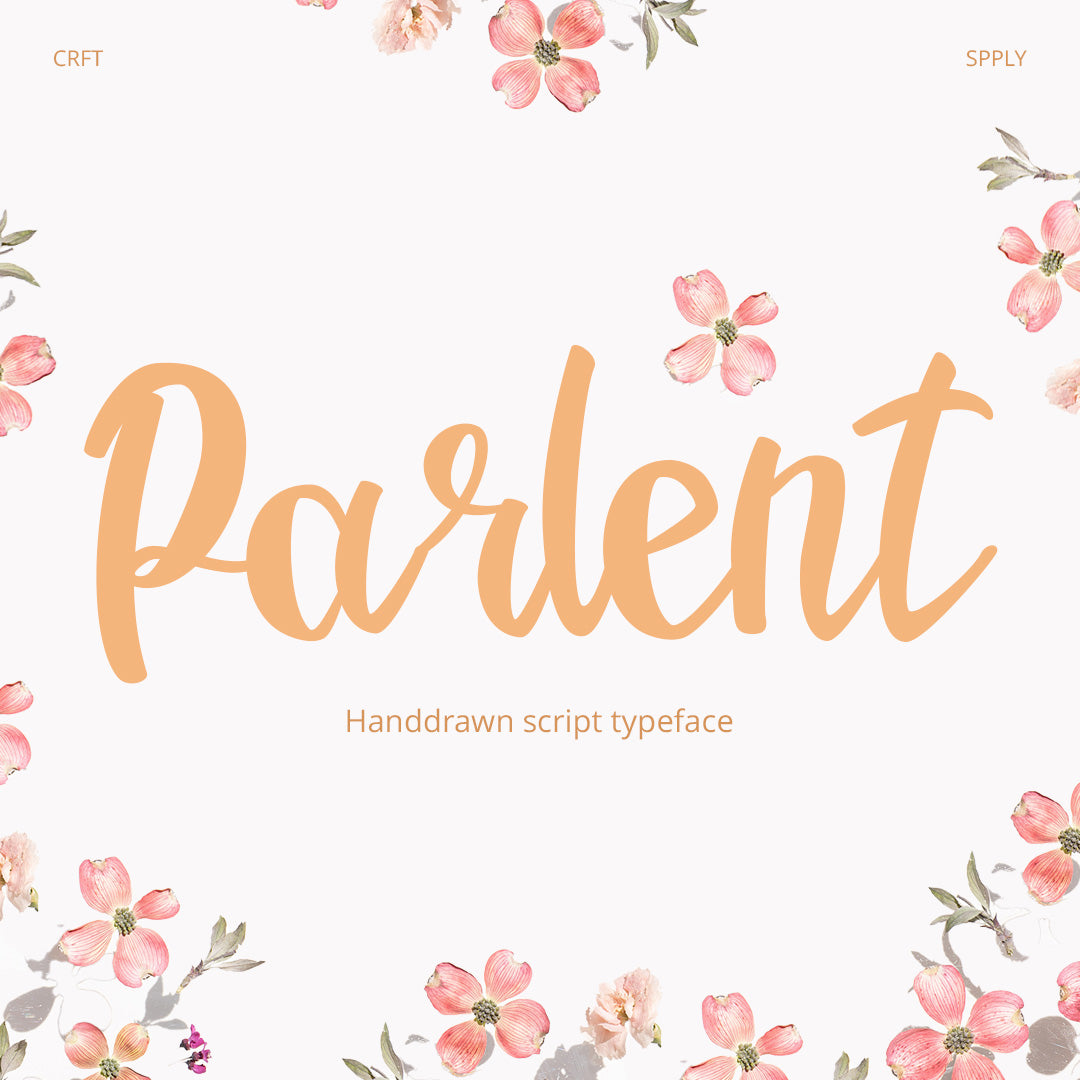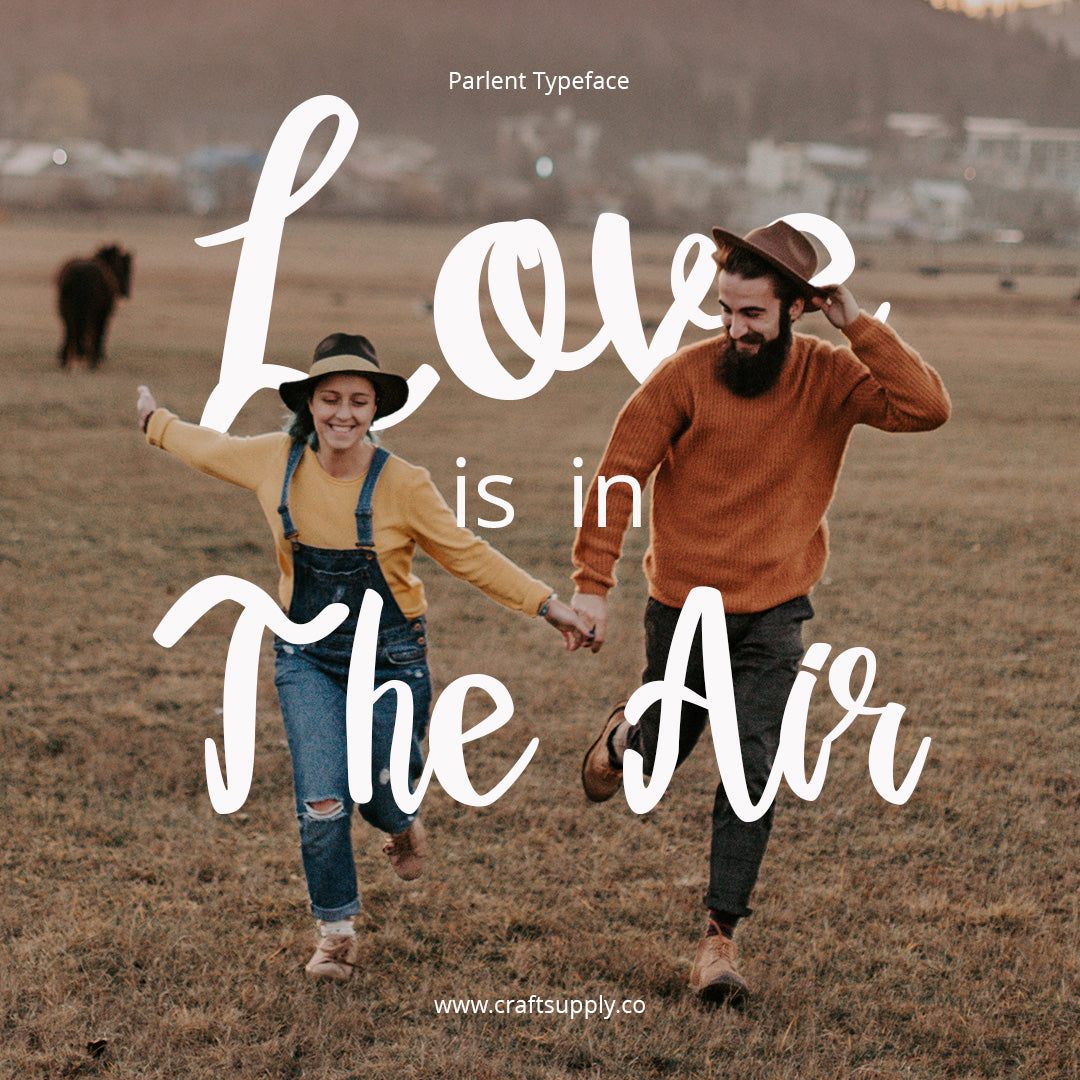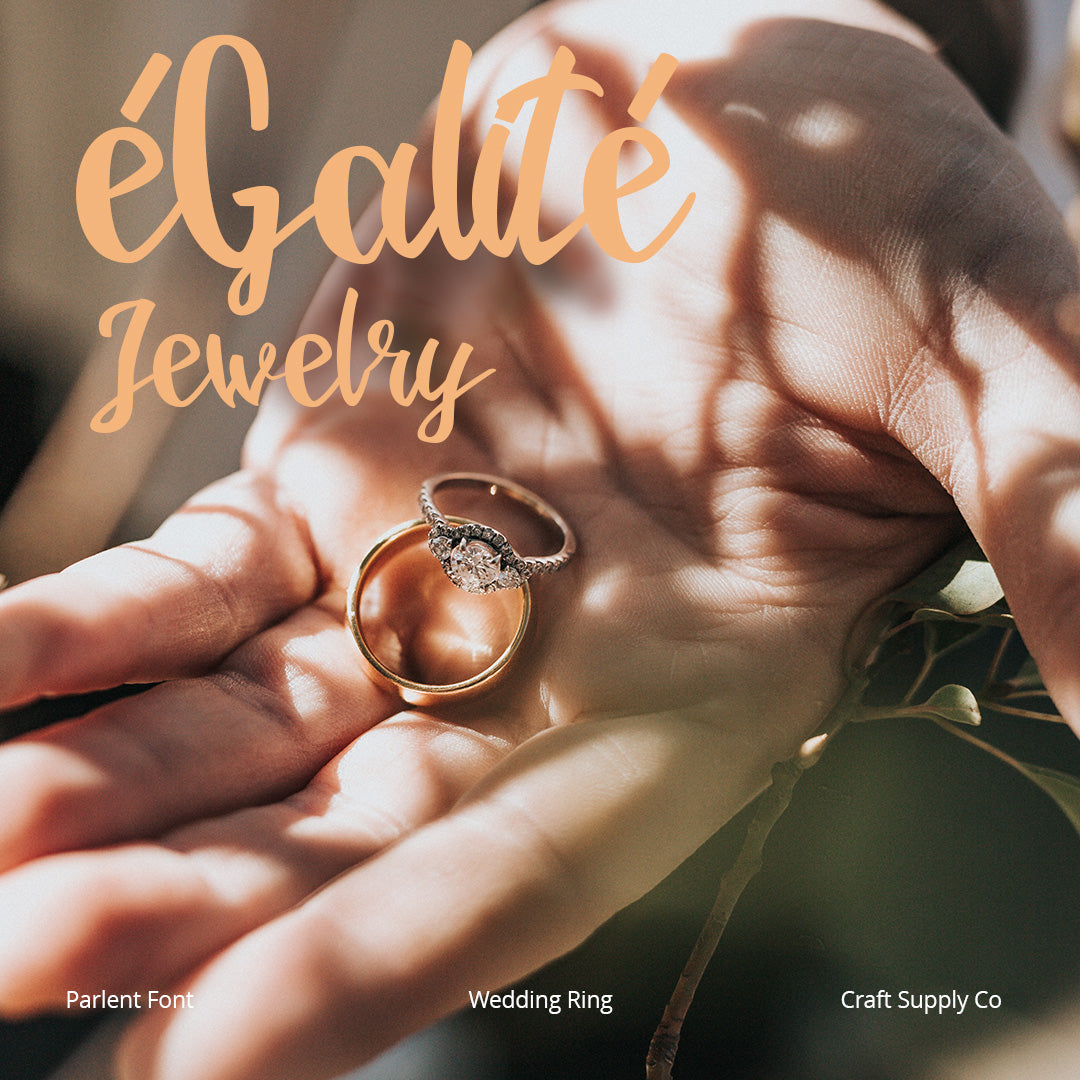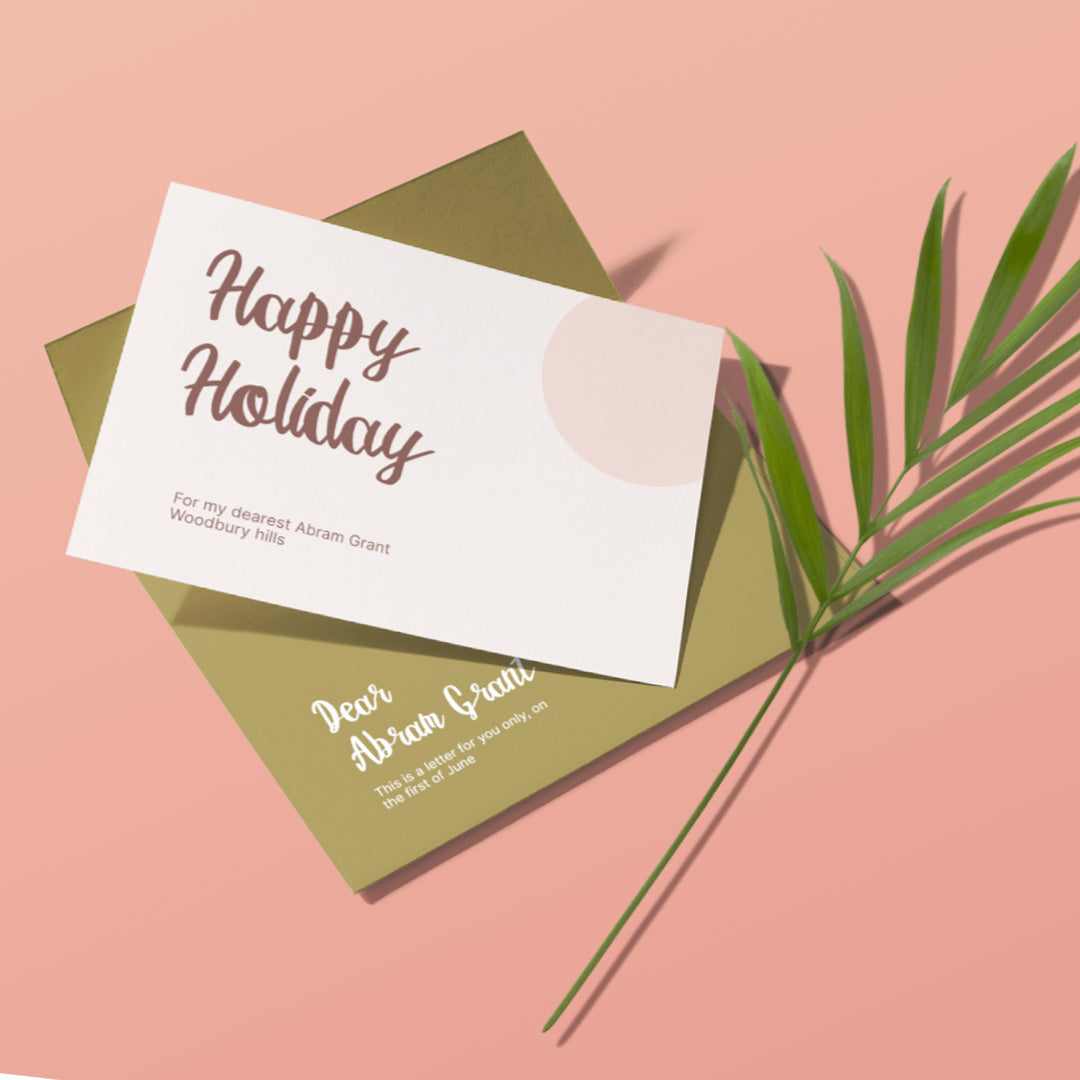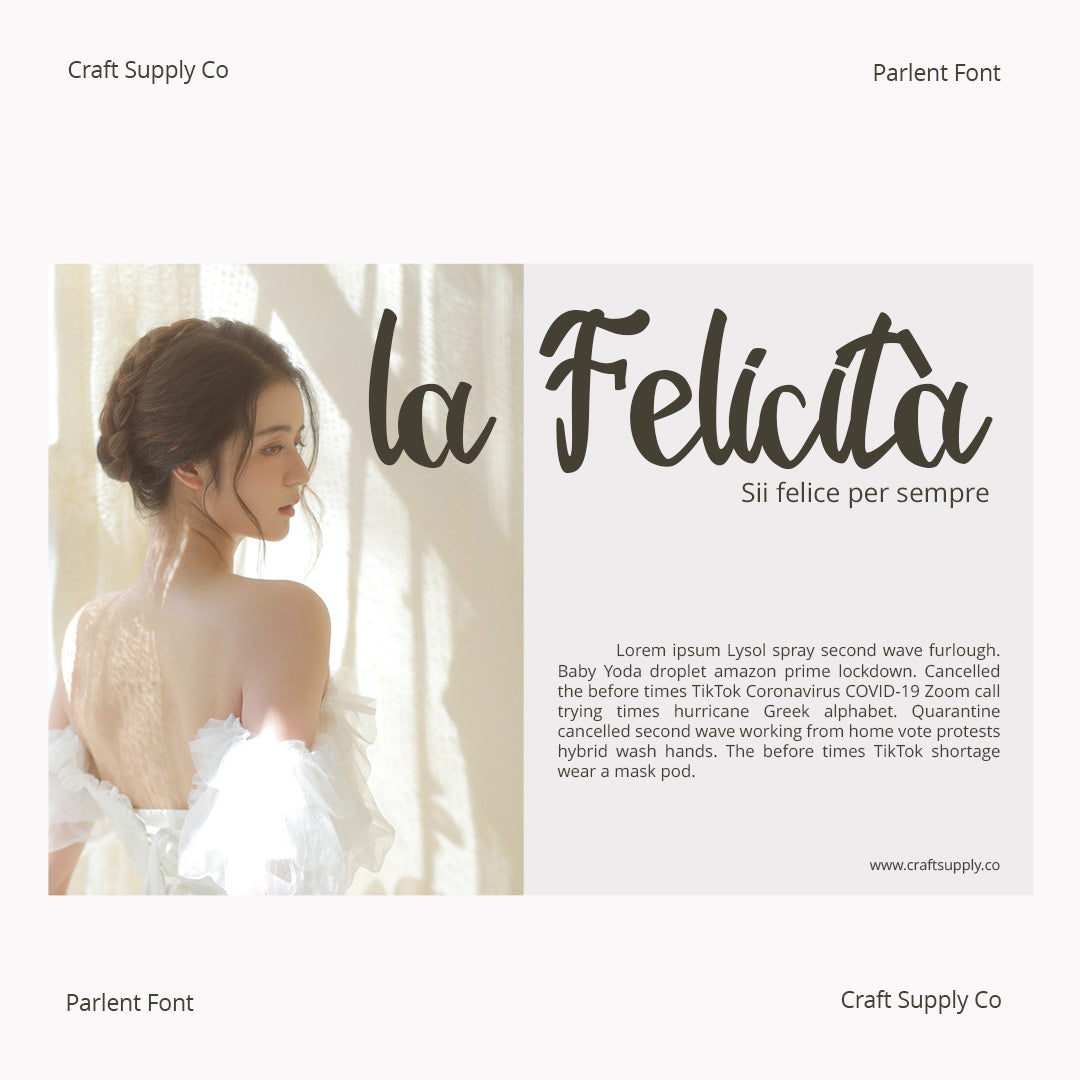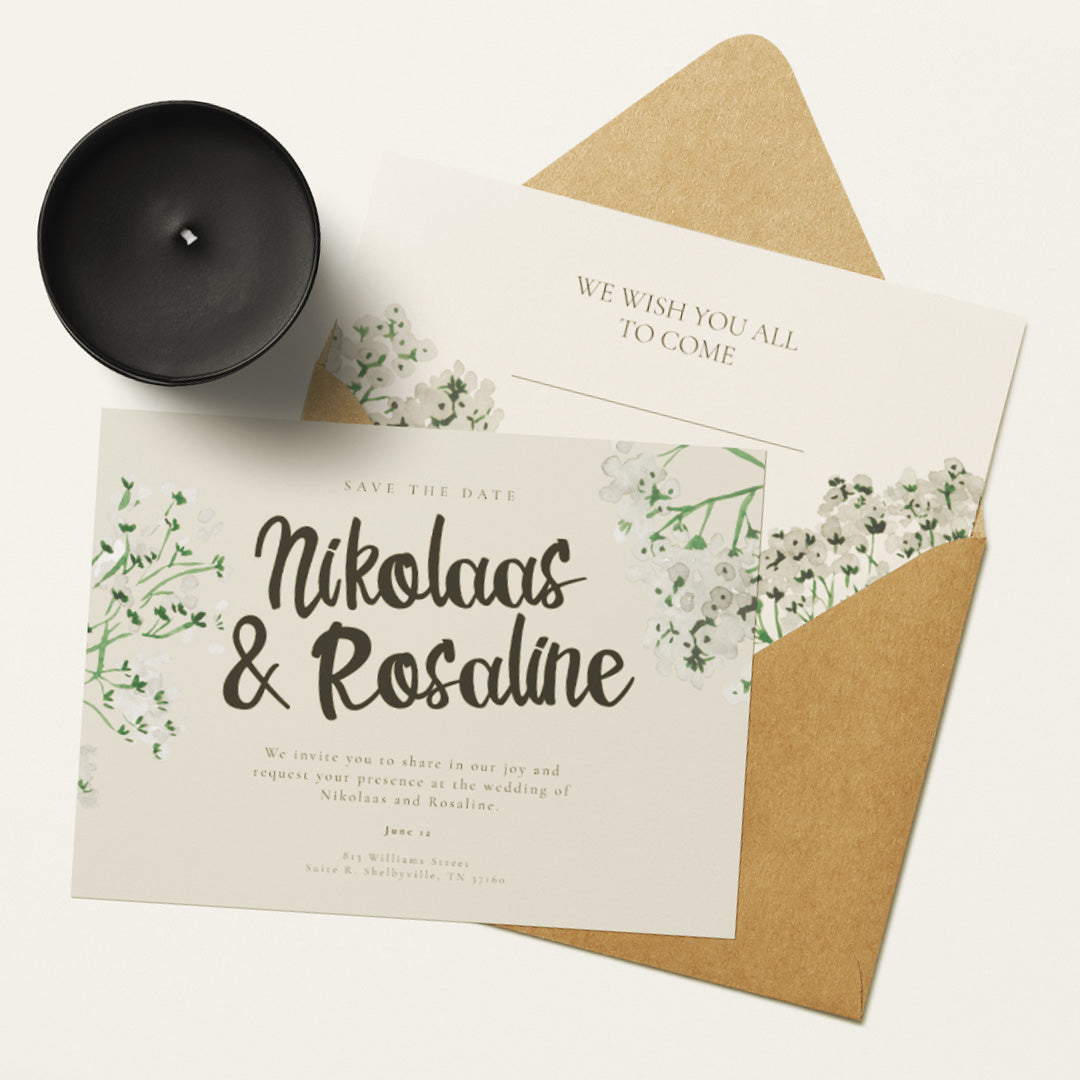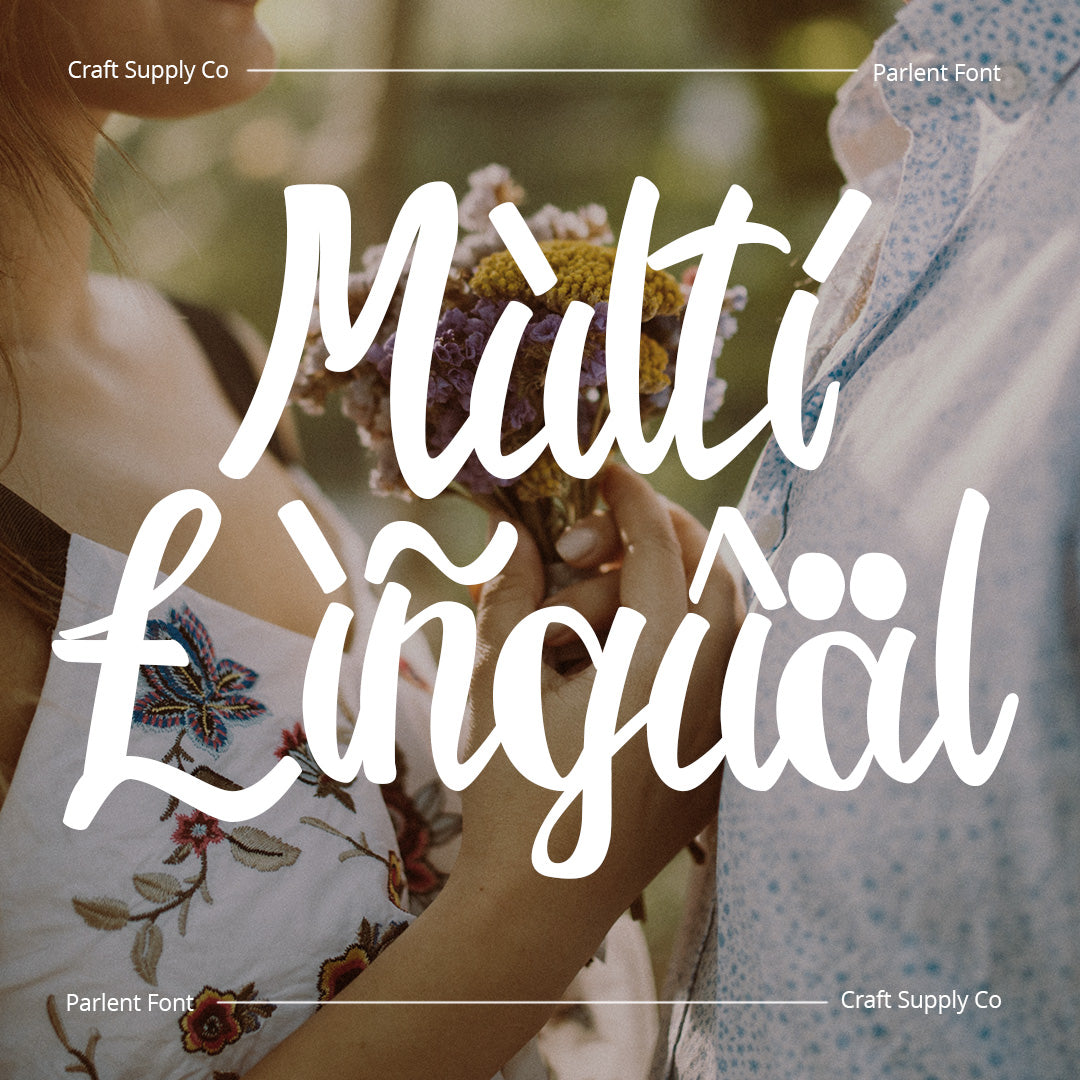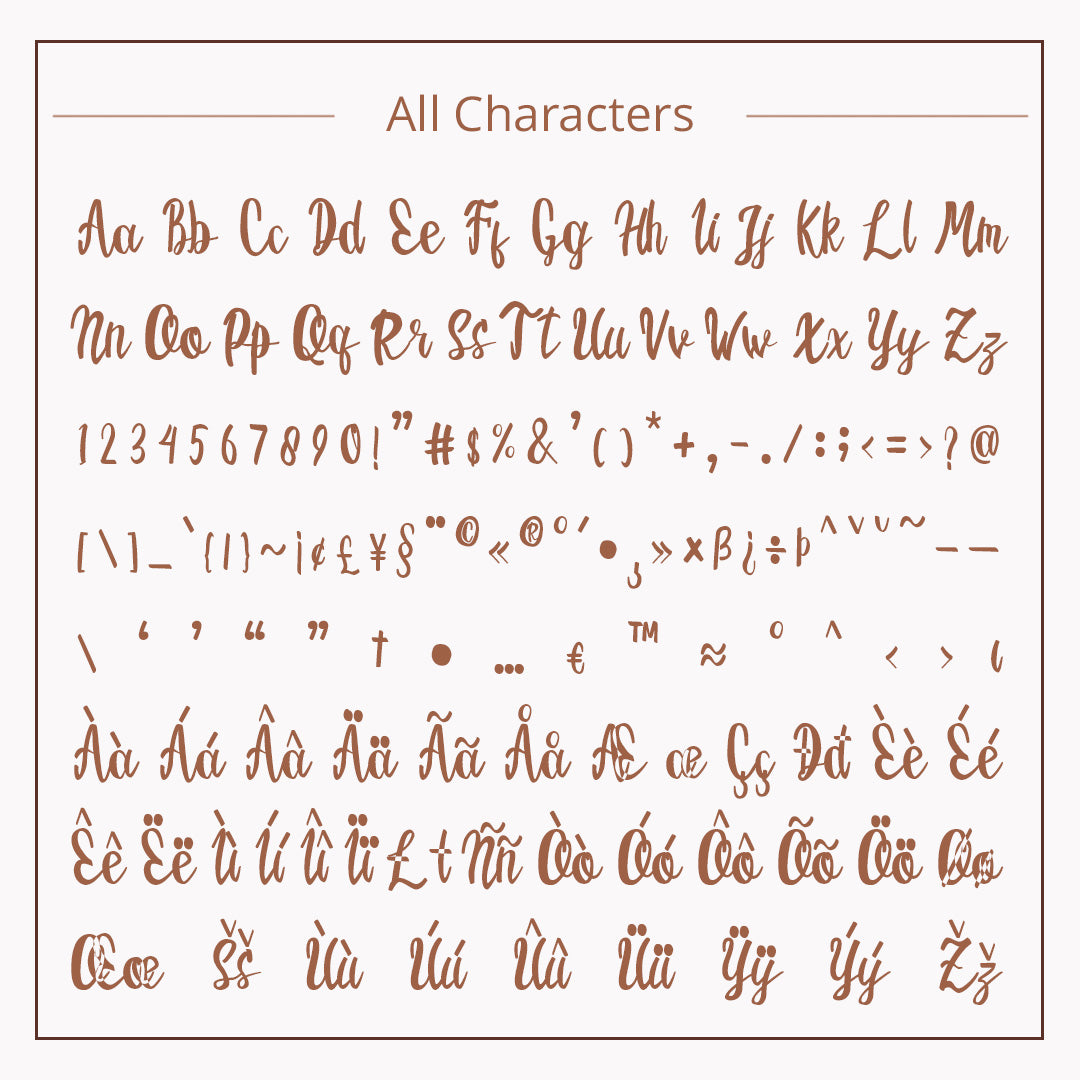
Parlent – Handdrawn Script Typeface
Introducing Parlent – Handdrawn Script Typeface
Charmingly Cute and Playful
Parlent – Handdrawn Script Typeface is a font that exudes cuteness and fun, adding a delightful touch to your designs.
Endearing and Whimsical
With its handdrawn charm, Parlent’s characters are endearing and whimsical, making it a perfect choice for projects that aim to bring joy and playfulness.
Infusing Playful Vibes
This font effortlessly infuses your designs with playful vibes. Whether it’s greeting cards, invitations, or children’s books, Parlent adds a cheerful and lighthearted element.
Versatility in Fun
Parlent’s versatility shines in various design applications, making it suitable for a wide range of cheerful projects. Its friendly appearance appeals to all age groups.
In Conclusion
In conclusion, Parlent – Handdrawn Script Typeface is your ultimate tool for creating designs that are cute, fun, and filled with playful vibes. Embrace the whimsical charm of Parlent and infuse your projects with a delightful playfulness that captivates hearts and brings smiles to faces.
Parlent – Handdrawn Script Typeface is a playful font featuring uppercase and lowercase characters, numerals, punctuation, and multilingual accents. Its handdrawn style offers a charming and whimsical appearance, making it suitable for a variety of design projects.